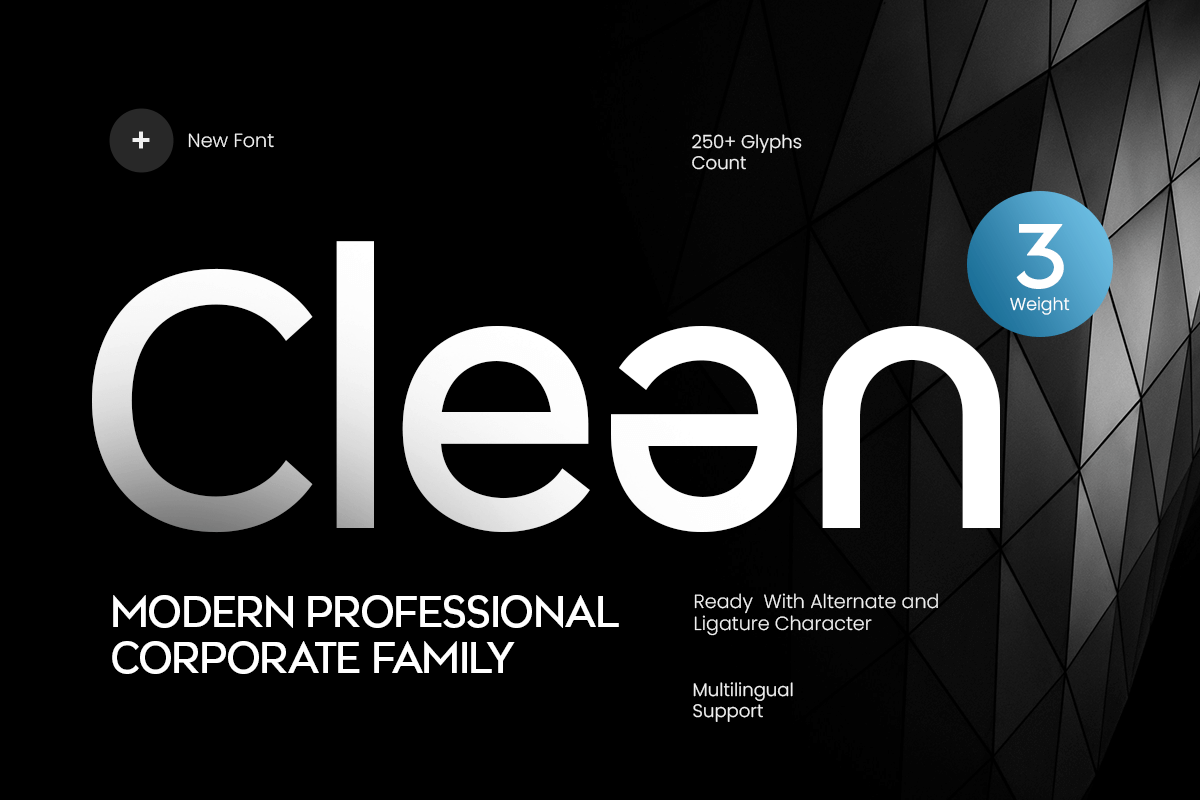
Clean
-Modern Professional Corporate Family
Clean - Modern Professional Corporate Family
Clean is a modern professional corporate font family built for clarity, trust, and polished communication. With a clean structure and balanced proportions, this type family delivers a confident business tone that feels contemporary, reliable, and highly readable.
Designed for corporate identity systems and everyday brand communication, Clean works seamlessly across logos, website headers, UI typography, presentations, reports, posters, signage, and social media graphics. As a family, it helps you maintain hierarchy and consistency across multiple layouts—making it ideal for information-heavy design while staying visually modern.
Whether you’re building a corporate brand system, designing a pitch deck, or creating clean marketing materials, Clean provides a versatile typographic foundation that keeps everything professional, structured, and easy to read across digital and print projects.
Inspiration Behind Clean
Clean is inspired by modern corporate design systems and minimalist communication principles—where clarity, structure, and consistency define professional typography. Built as a flexible family for business branding and readable layouts, it supports strong hierarchy and clean visual rhythm for brands that need a trustworthy, modern voice.
Clean Font Features
• Modern corporate font family with clean, professional structure
• Available with 3 weights: Light, Regular and Bold versions
• Built for brand systems, hierarchy, and consistent typography
• Strong readability for headlines and text-forward layouts
• OpenType features for polished, professional typesetting
• Corporate branding and business identity systems
• Presentations, pitch decks, and annual reports
• Website headers, UI design, and digital product typography
• Posters, signage, and structured promotional layouts
• Social media graphics and brand communication assets
Build a confident business identity with Clean—crafted for modern corporate systems and professional clarity. 💼✨